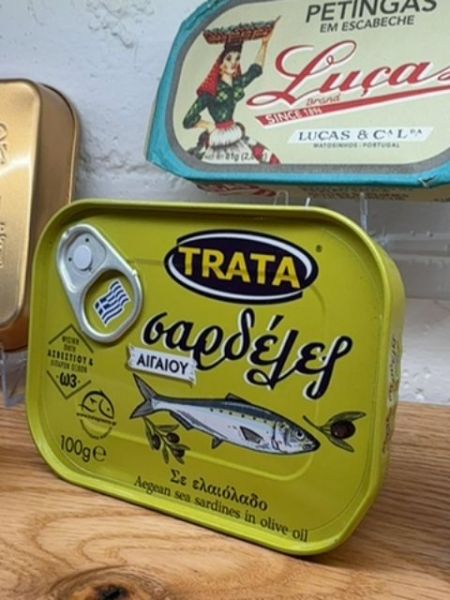
TRATA Sardines
Canned Aegean sea sardines in olive oil.
Greece
The typography uses a bold, sans-serif font for the brand name 'TRATA,' which stands out in white against a black background for high contrast. The rest of the text is in a stylized serif font that mimics traditional Greek script, conveying authenticity and cultural connection.
The packaging is a compact, rectangular tin with a vibrant yellow color that immediately draws attention. It features illustrations of sardines and olive branches, emphasizing its key ingredients. The pull-tab lid is convenient for easy opening.